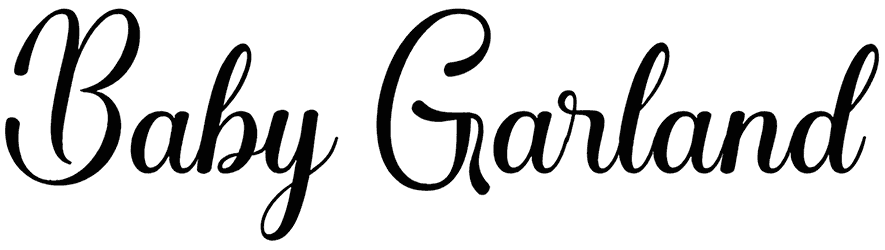
Baby Garland Font
Are you looking for a modern script font with a nice shape? Here it is! Baby Garland font gives an elegant and friendly feel that your text needs, and it helps you to promote your textbook in a short time.
If you want to impress people with your text, this font with a wavy style can be the best choice for you. Just click the download button to have this Valentine font, and you can use it for your social media posts, branding, and posters.